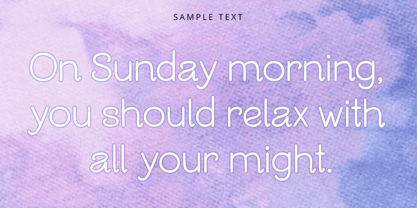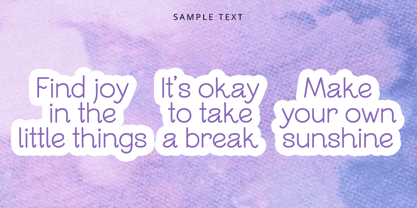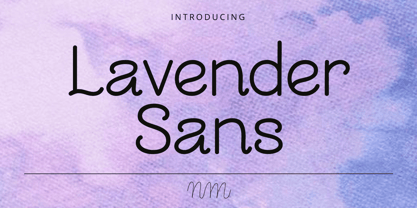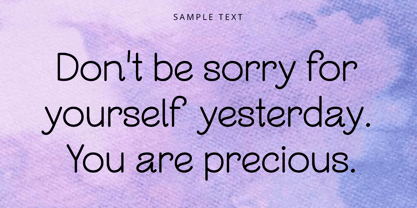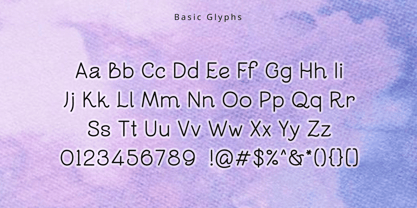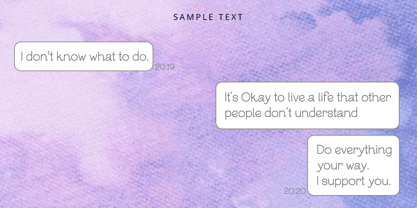
Nm Lavender Sans
The Nm Lavender Sans Font Family was designed by Minji Noh and published by NM Fonts. Nm Lavender Sans contains 1 styles. More about this family
Nm Lavender Sans is a clean and friendly handwritten sans-serif font with soft, rounded letterforms that create a calm and approachable feel. Its balanced design is simple enough for everyday use while adding a subtle touch of personality to your text.
Whether you're designing social media graphics, digital planners, branding, greeting cards, or casual packaging, Nm Lavender Sans brings warmth without sacrificing readability. Its versatile style makes it equally suitable for both modern and playful designs.
With its smooth and approachable character, Nm Lavender Sans works beautifully across a wide range of creative projects. From digital screens to printed materials, it delivers a fresh, comfortable look that fits naturally into everyday design.